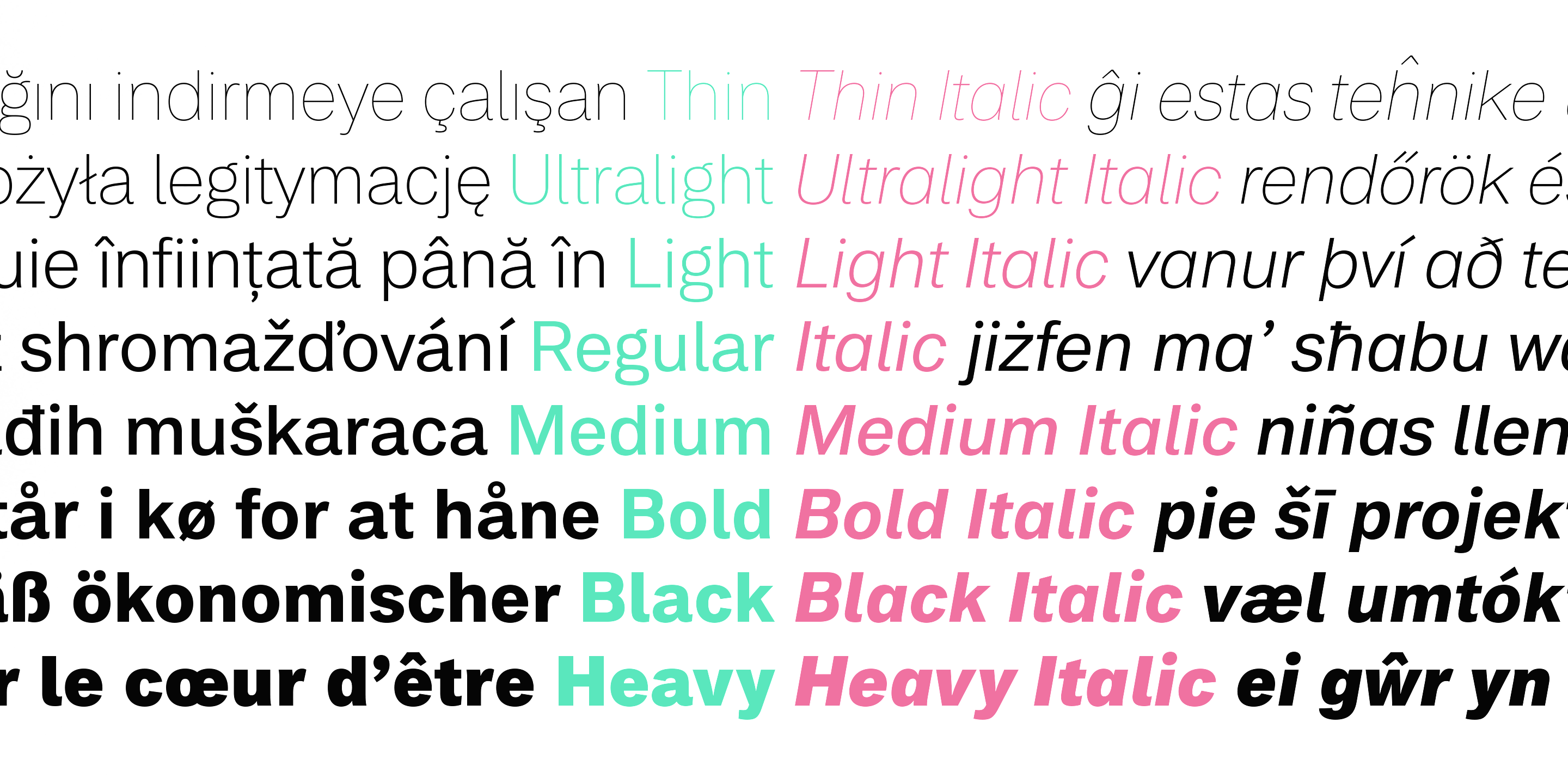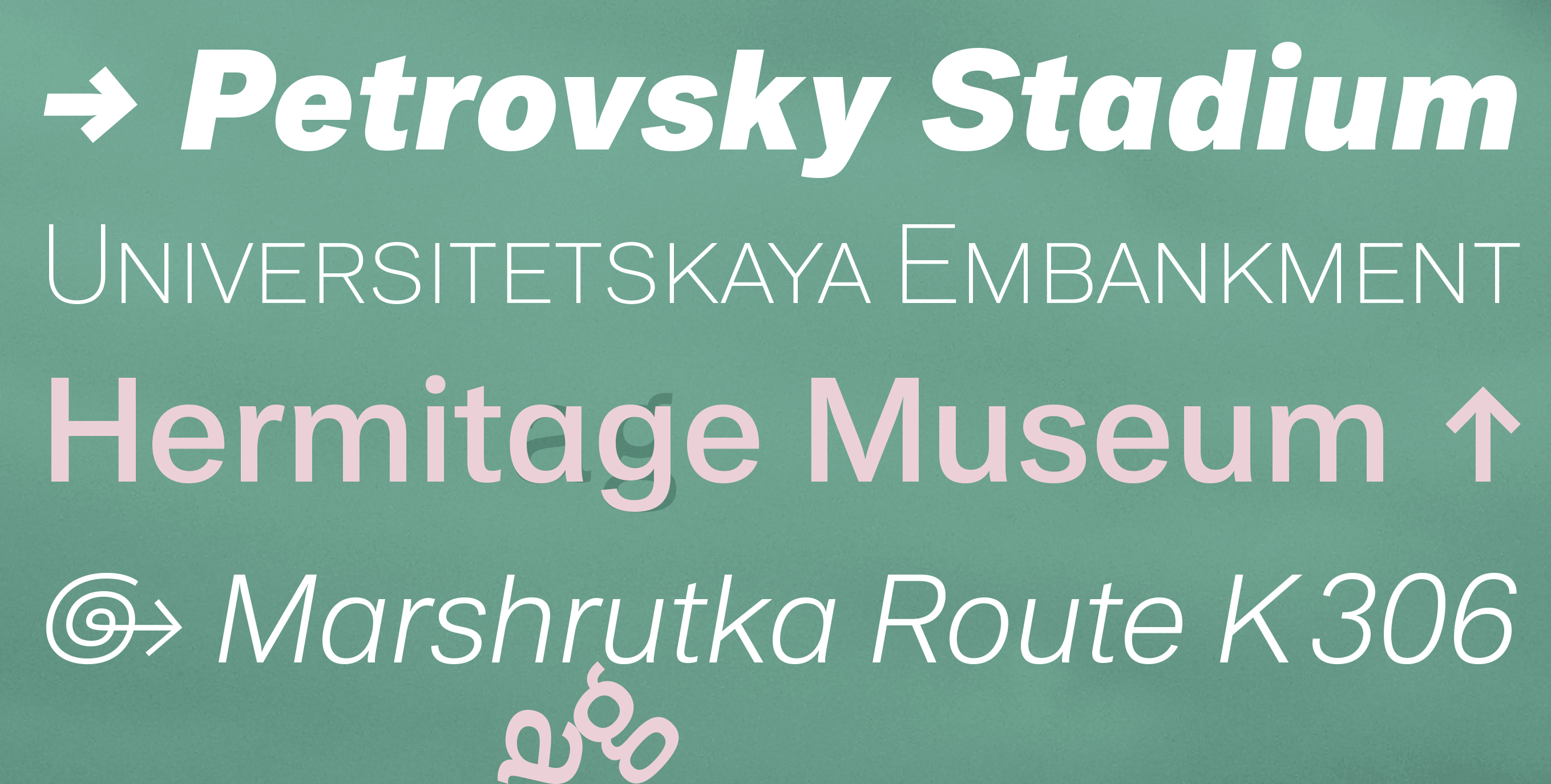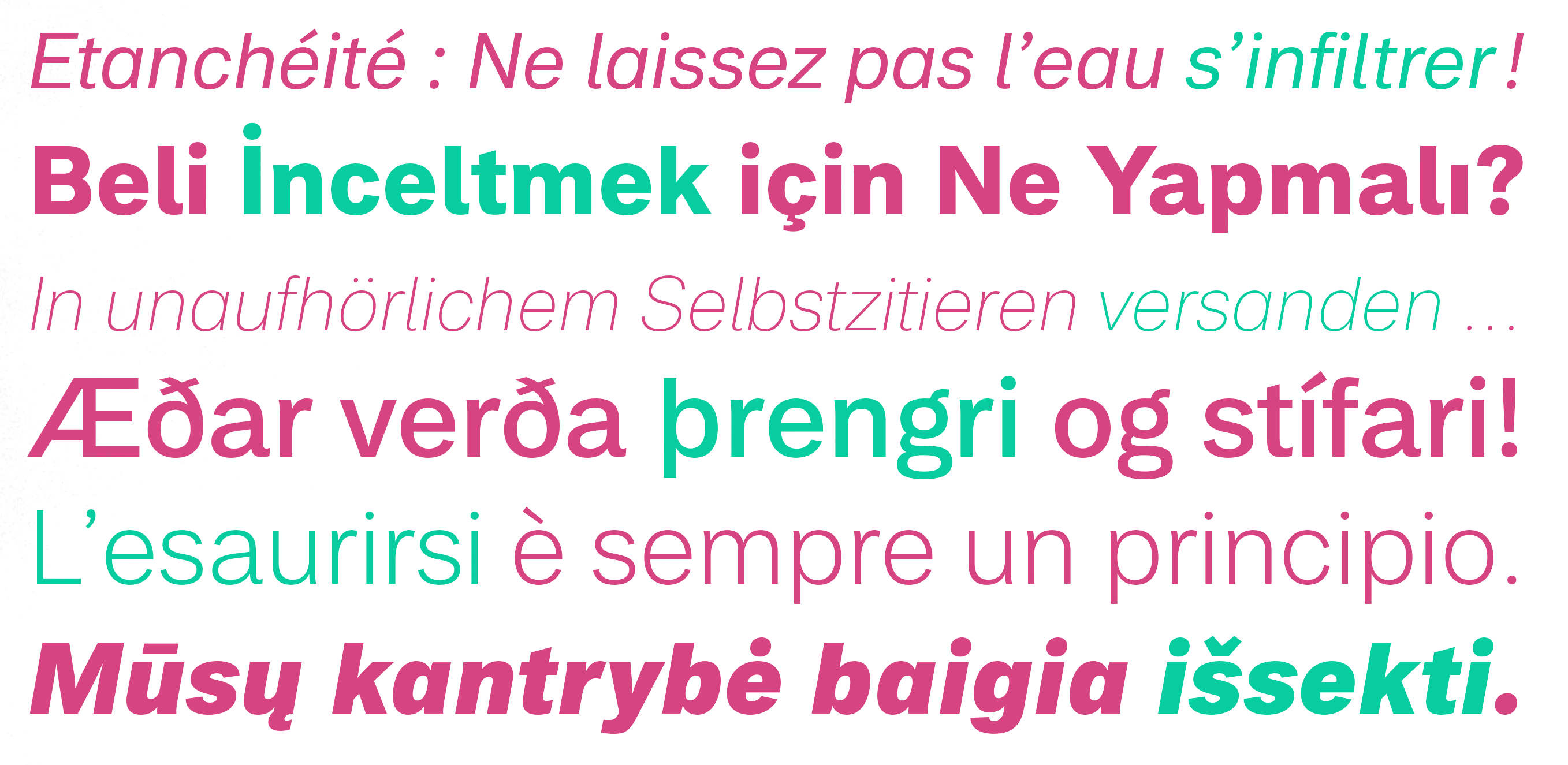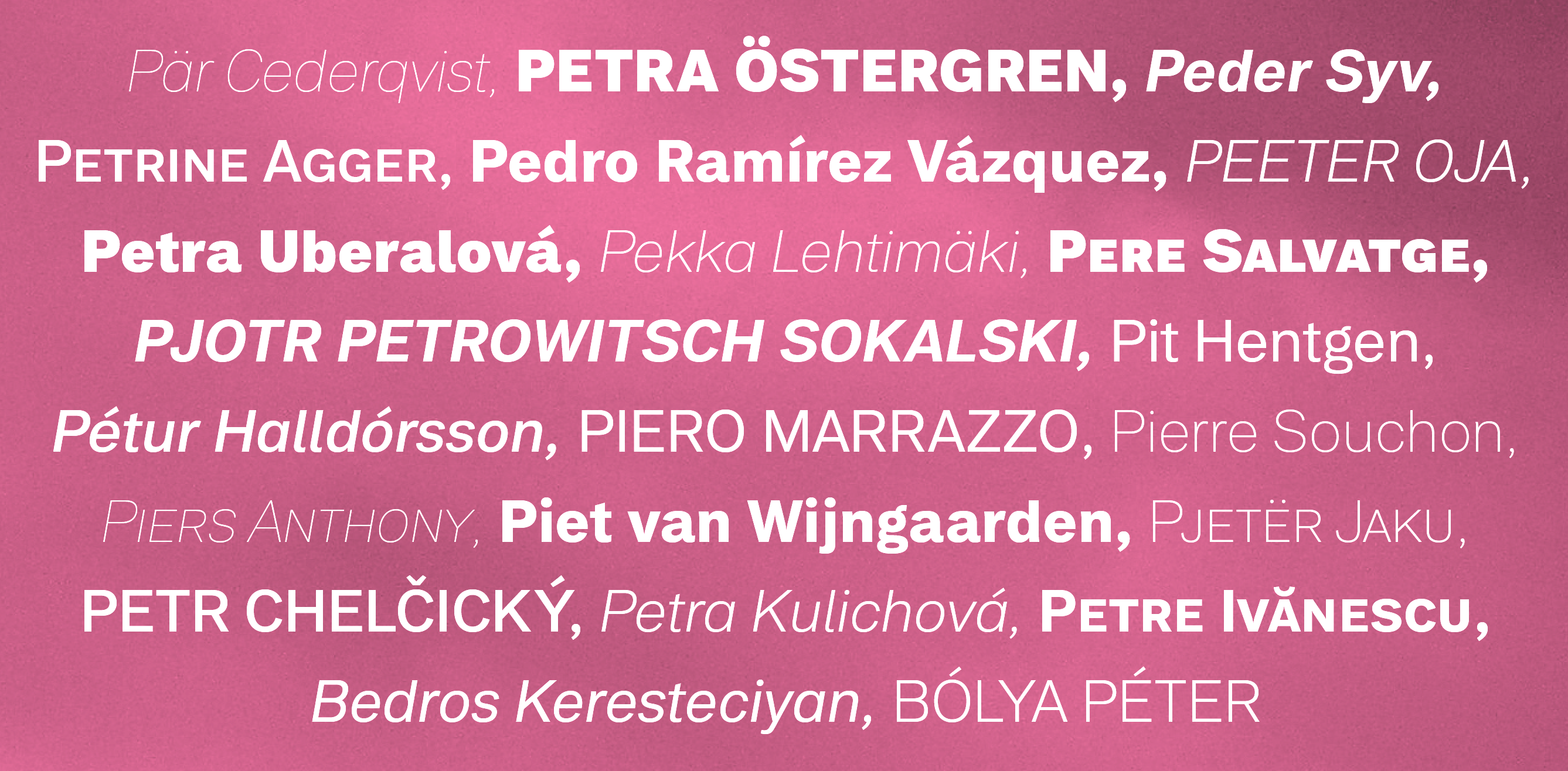
[Peter Lammert]
German typefoundry, est. 2014 by Peter Lammert. Peter's typeface Peter (2014) is a neo-grotesque sans. Very basic, it shows humanist touches in the heavier weights. |